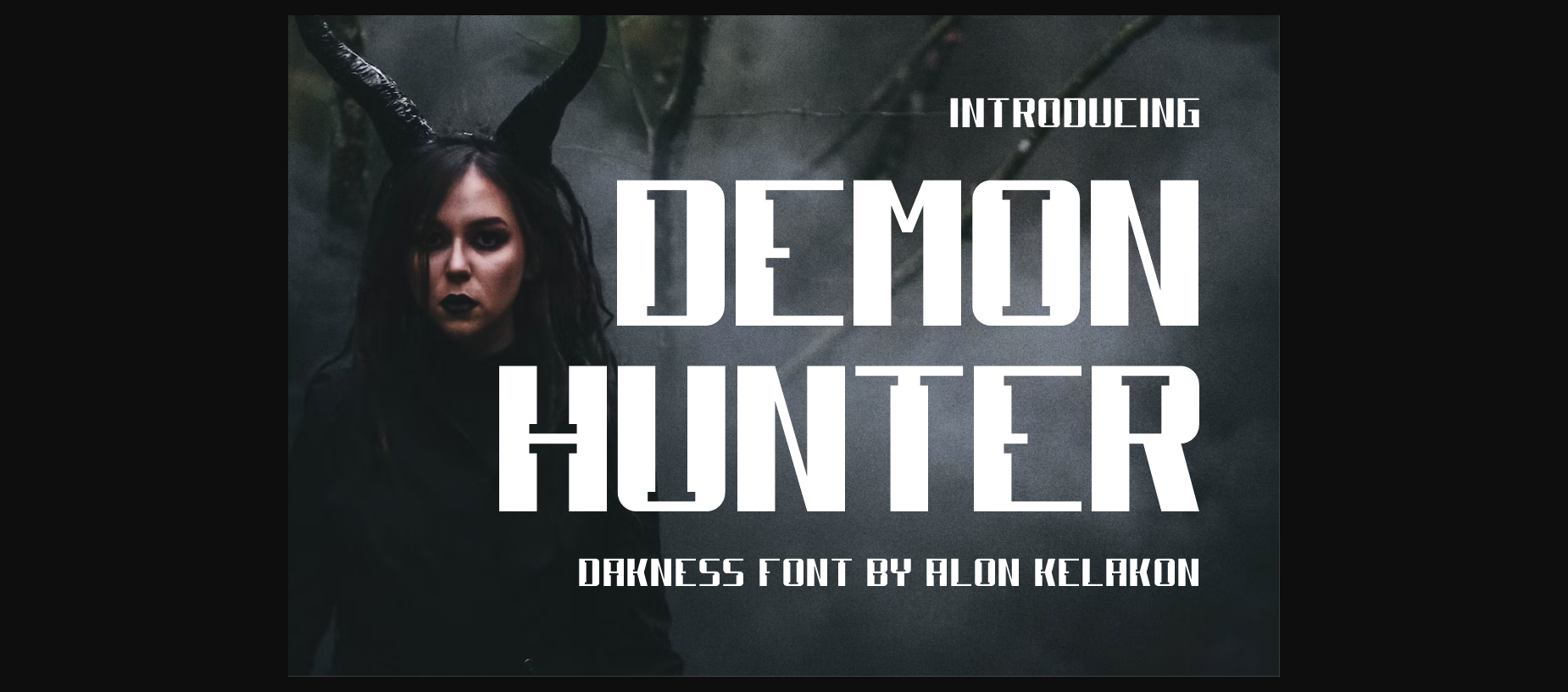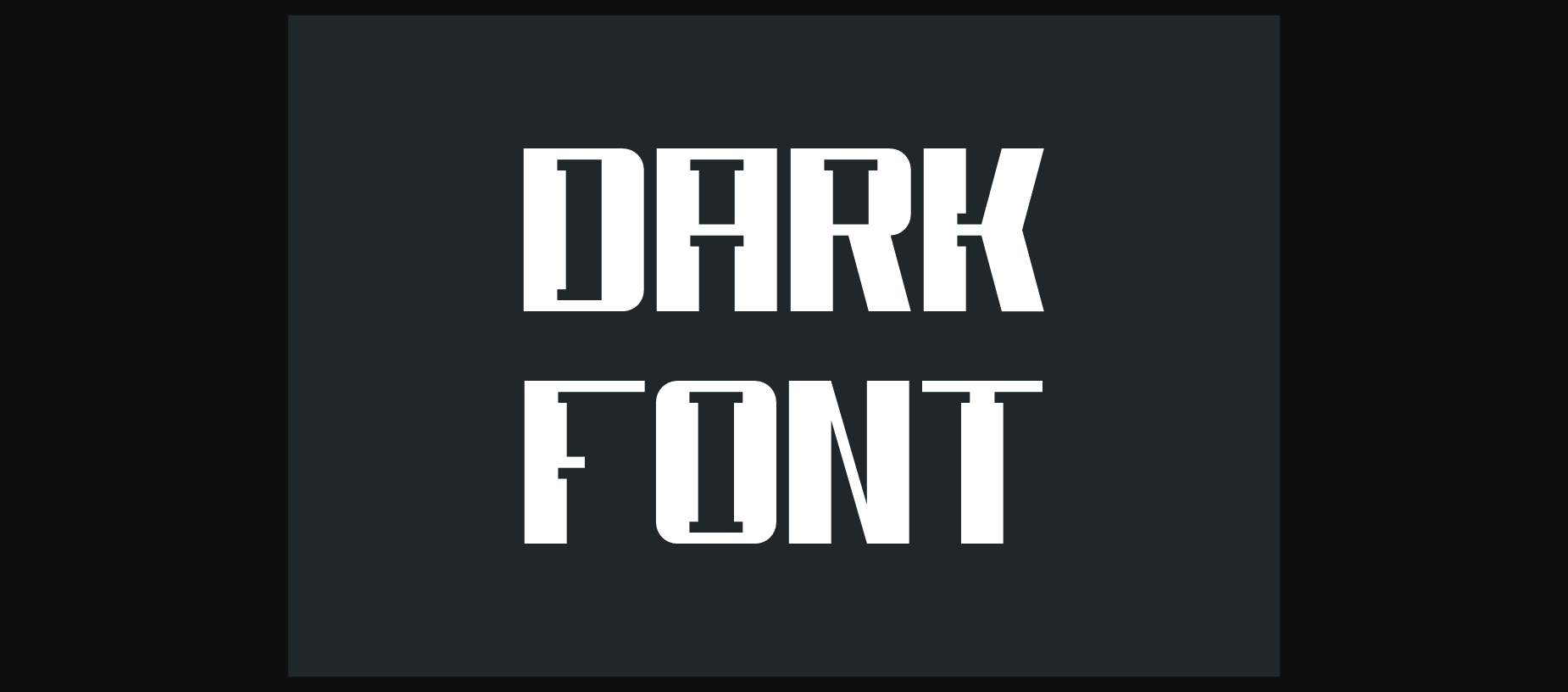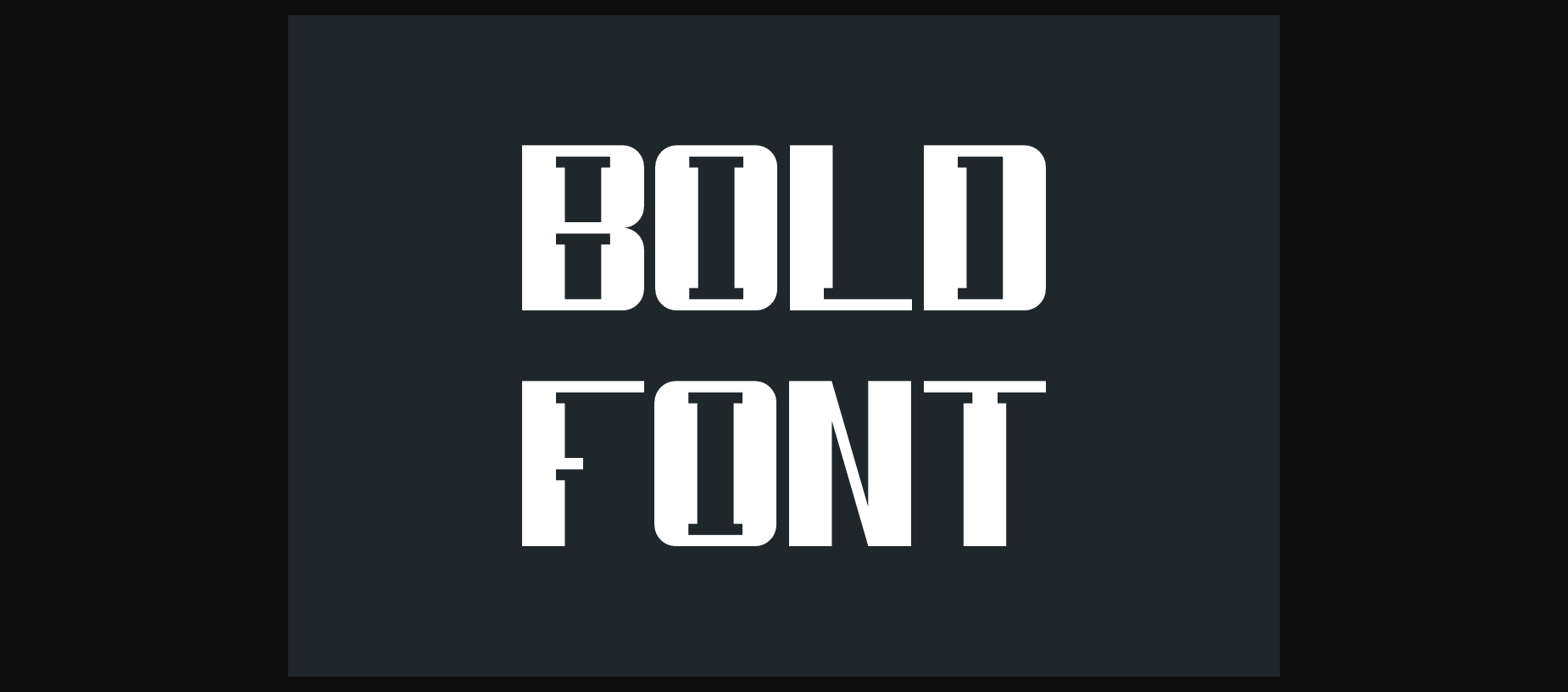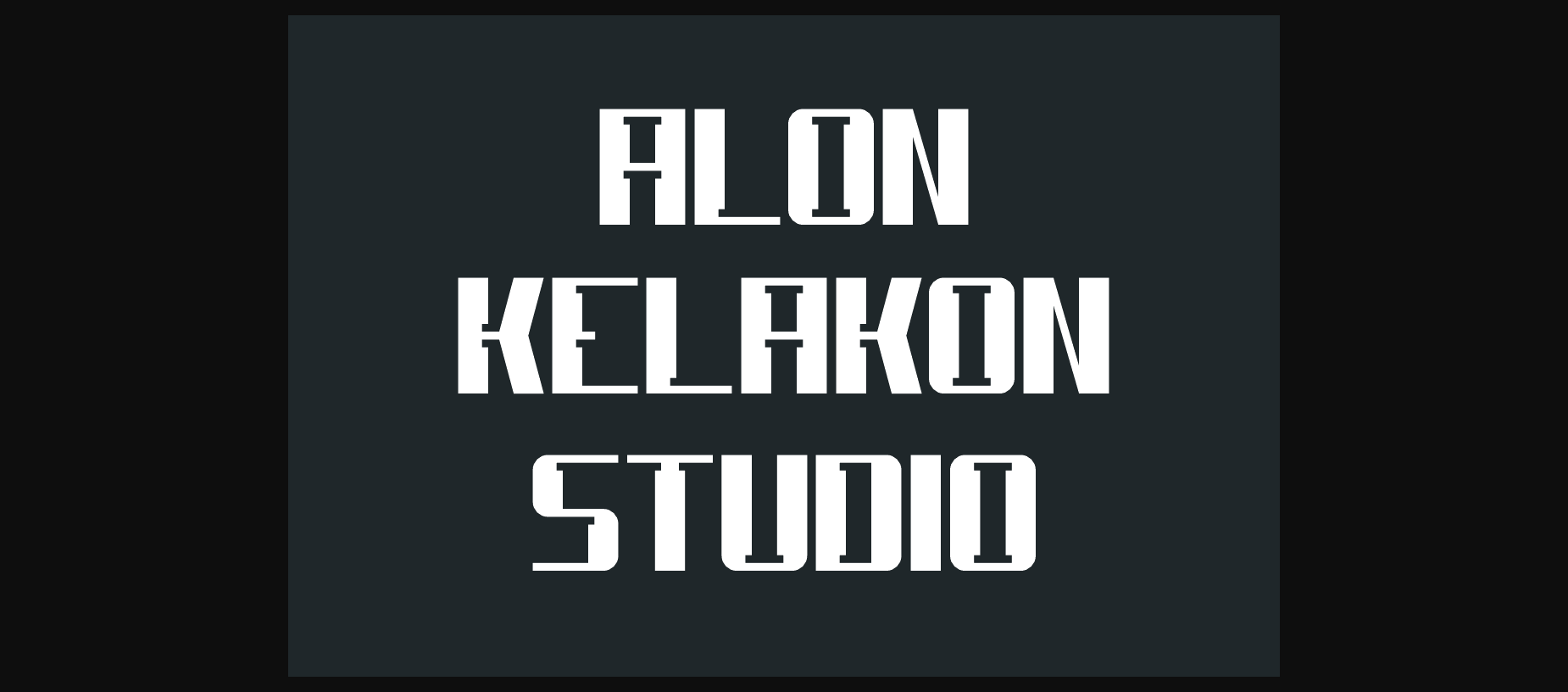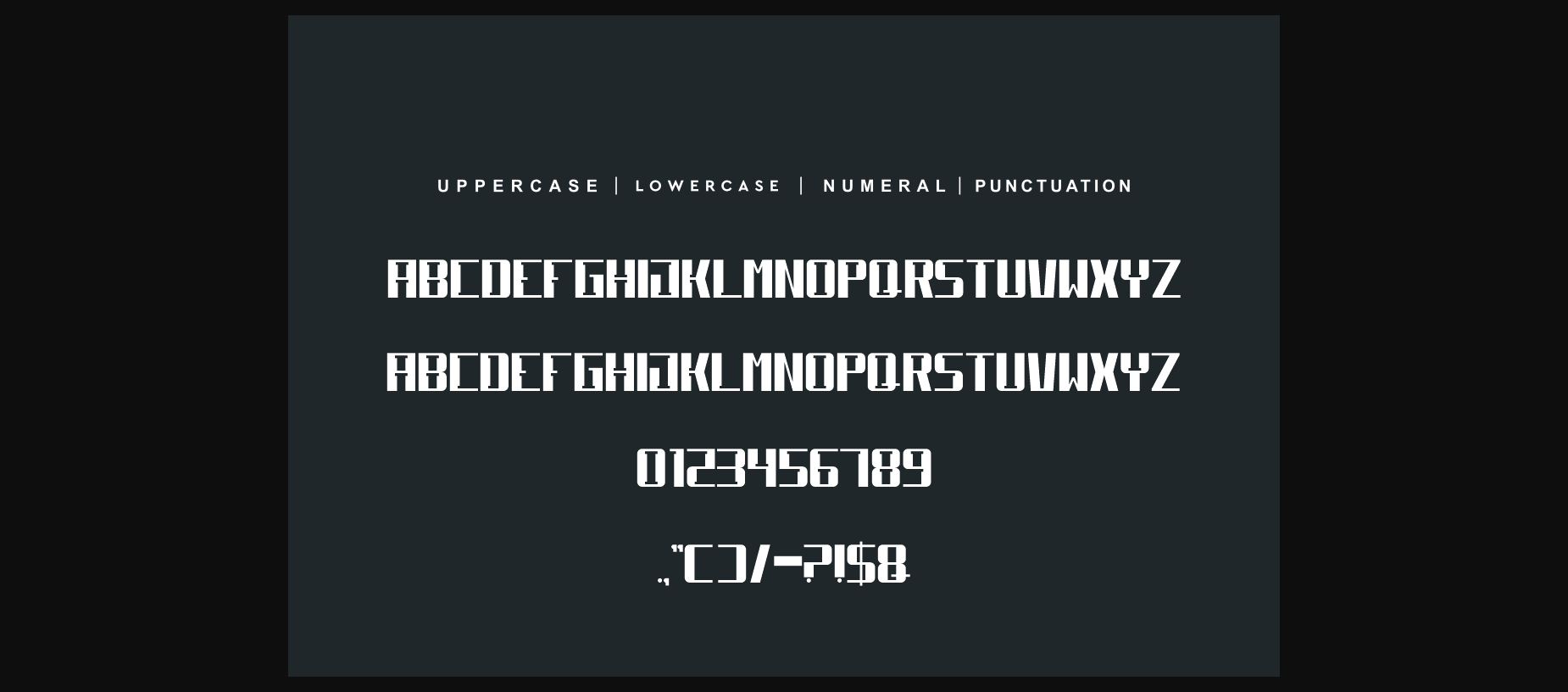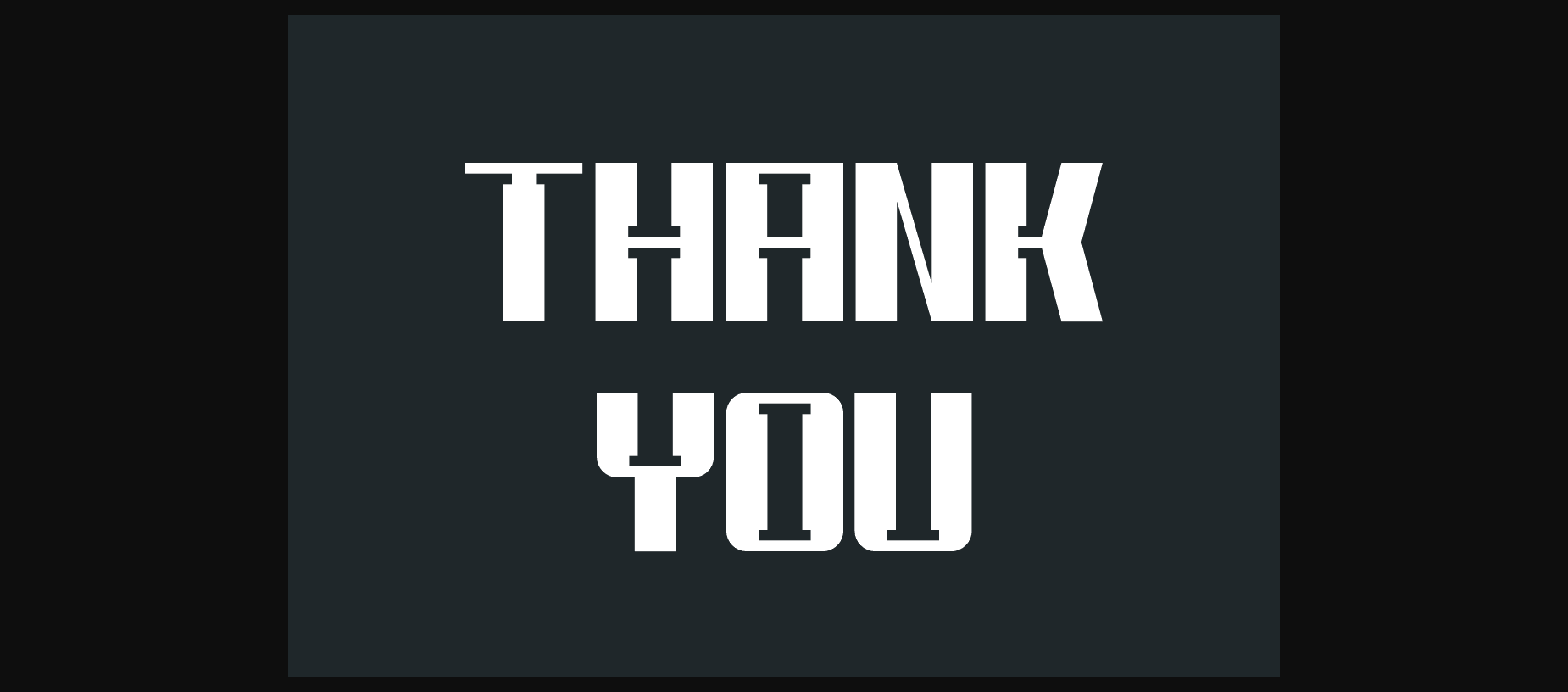
Demon Hunter Font is unique . Ready to use for your design like labeling, clothing, movie sceen, poster, movie title, gigs, album covers, logos, and much more.